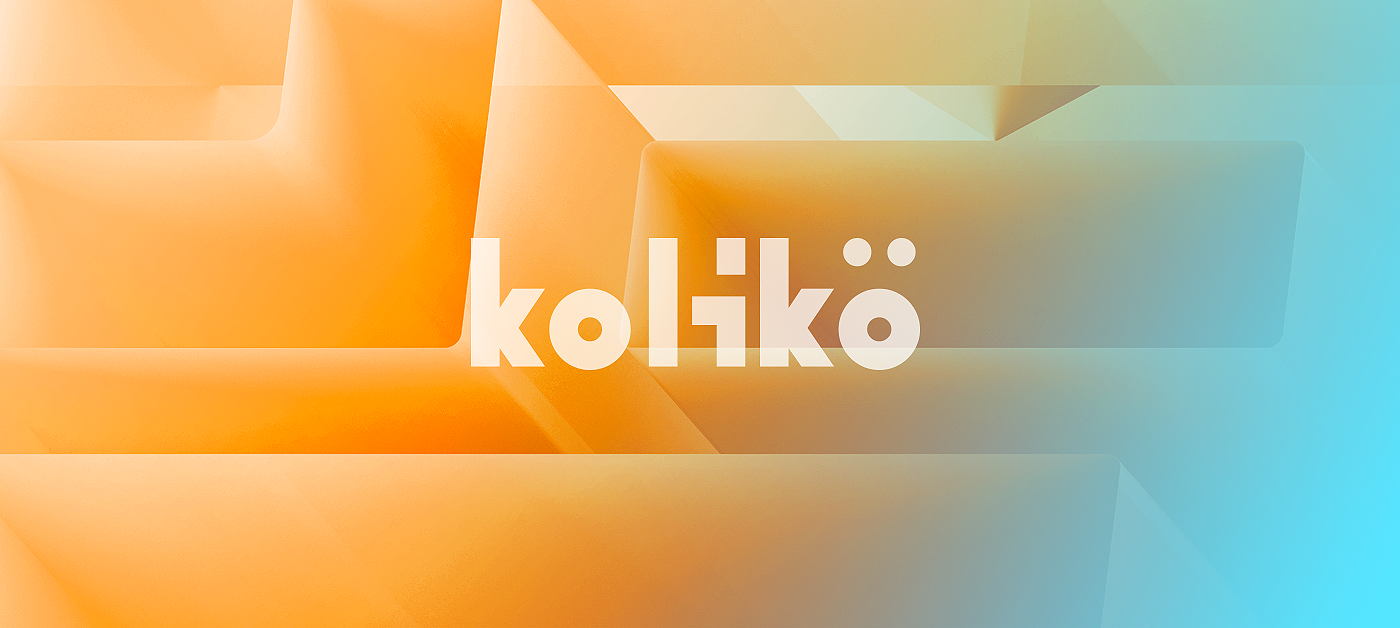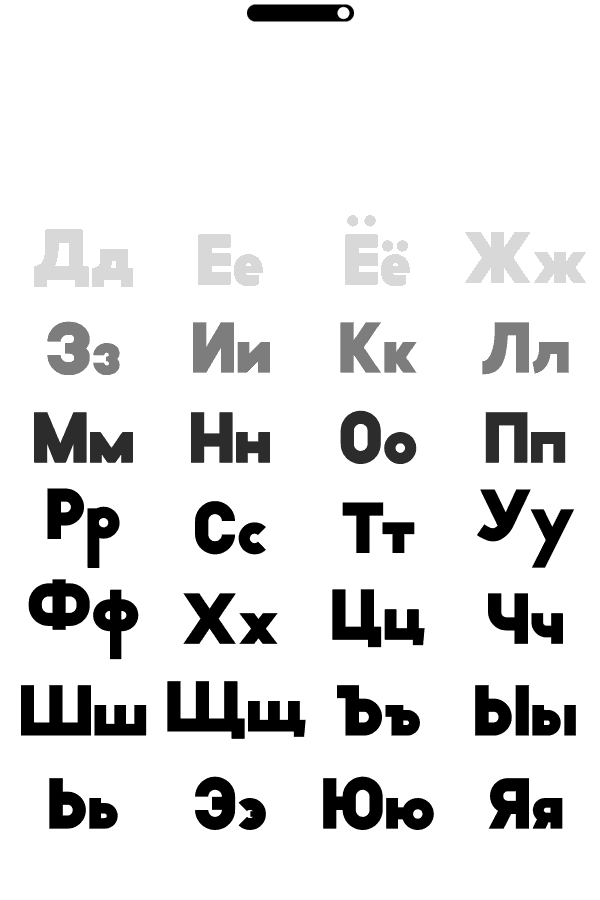
Kolikö free Typeface
Kolikö by Fontfirma is a type family with latin and cyrillic letters.
Font family consists of 3 unique font styles — regular, thin and bold. It is a geometric forms sans serif with plain curves and a clean, functional structure. So it's most suitable for headlines of all sizes, but it does work well in a variety of text lengths.